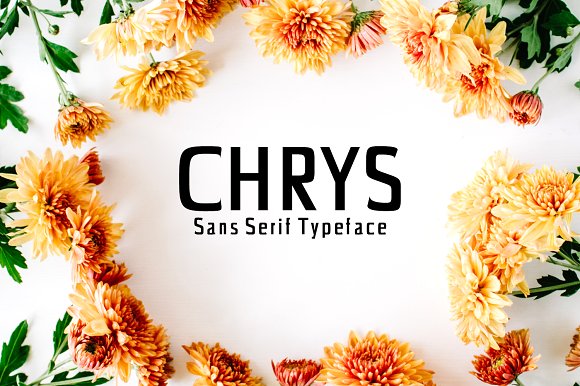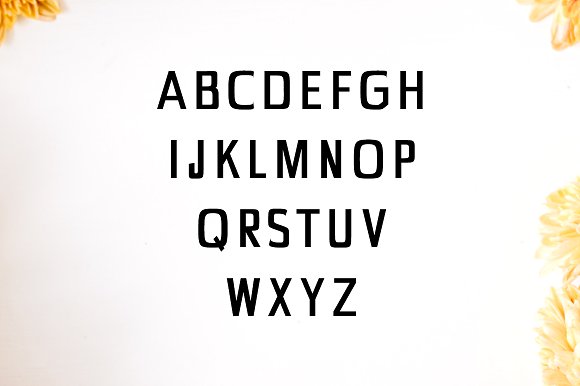
Chrys Sans Serif 4 Font Family Pack
Chrys Sans Serif Typeface is a minimal clean sans serif font family, which contains 4 weights and It features unique and modern sans serif look and feel. Perfect for gorgeous logos, titles, web layouts and branding. It looks gorgeous in all caps with a wide-set spacing if you want to try a classy look, or beautiful on its own in capital and lowercase letters for something completely timeless.